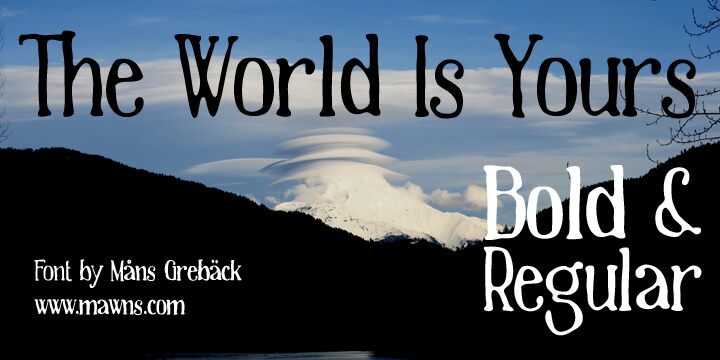
The World Is Yours Bold
The World Is Yours Bold by Måns Grebäck is a free decorative display font with tall, elastic-looking letters and a mischievous silhouette. Thick vertical strokes narrow abruptly into pinched joins and small, flared tips. Uneven widths and lightly wavering contours give the lettering the loose finish of hand-cut signage.
A music poster is its strongest setting, where the exaggerated height and unpredictable shapes can echo expressive illustration. It also suits independent fashion branding, festival merchandise, and offbeat food packaging aimed at young audiences who respond to playful, irreverent handmade graphics.